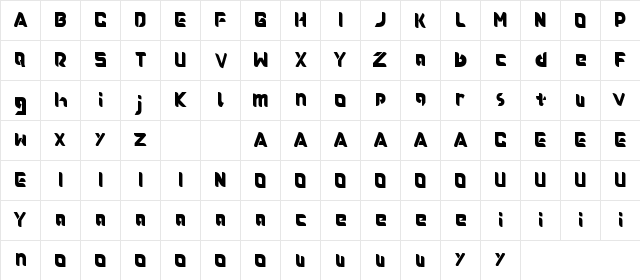
Roundfra DEMO Regular
Design Context for Roundfra DEMO Typeface
Roundfra DEMO uses gentle rounded endings to create a warm, inviting typographic personality — less corporate than geometric sans, more refined than playful display fonts.
A natural fit for tech startups, health and wellness brands, children's products, and friendly consumer apps.
Font Pairing: Pairs well with a rounded or humanist sans for body copy, maintaining the friendly tone without relying on Roundfra DEMO to carry extended reading.
Pro Tip: Pair Roundfra DEMO with a geometric sans for a balanced system — the rounded softness works as a warm counterpoint to harder-edged companions.